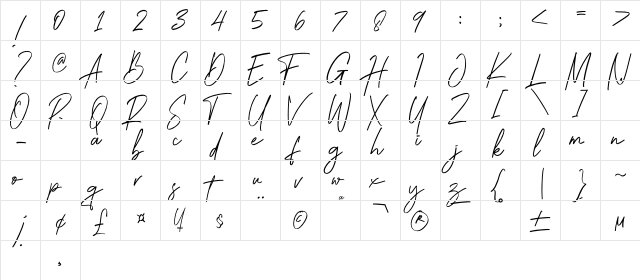
Brightness Regular
Design Context for Brightness Typeface
Brightness is a composed and adaptable typeface that performs quietly and consistently across a wide range of design contexts.
Pro Tip: Pair Brightness with a font of contrasting weight or personality to build a more expressive typographic hierarchy.